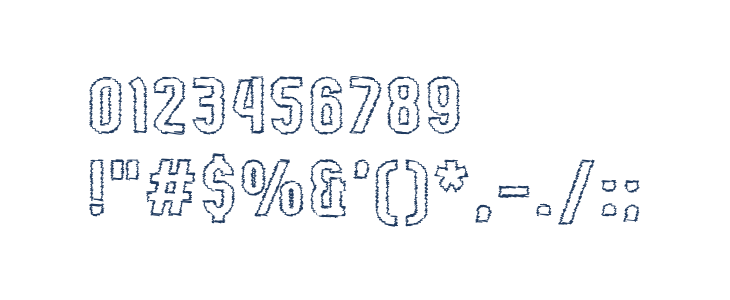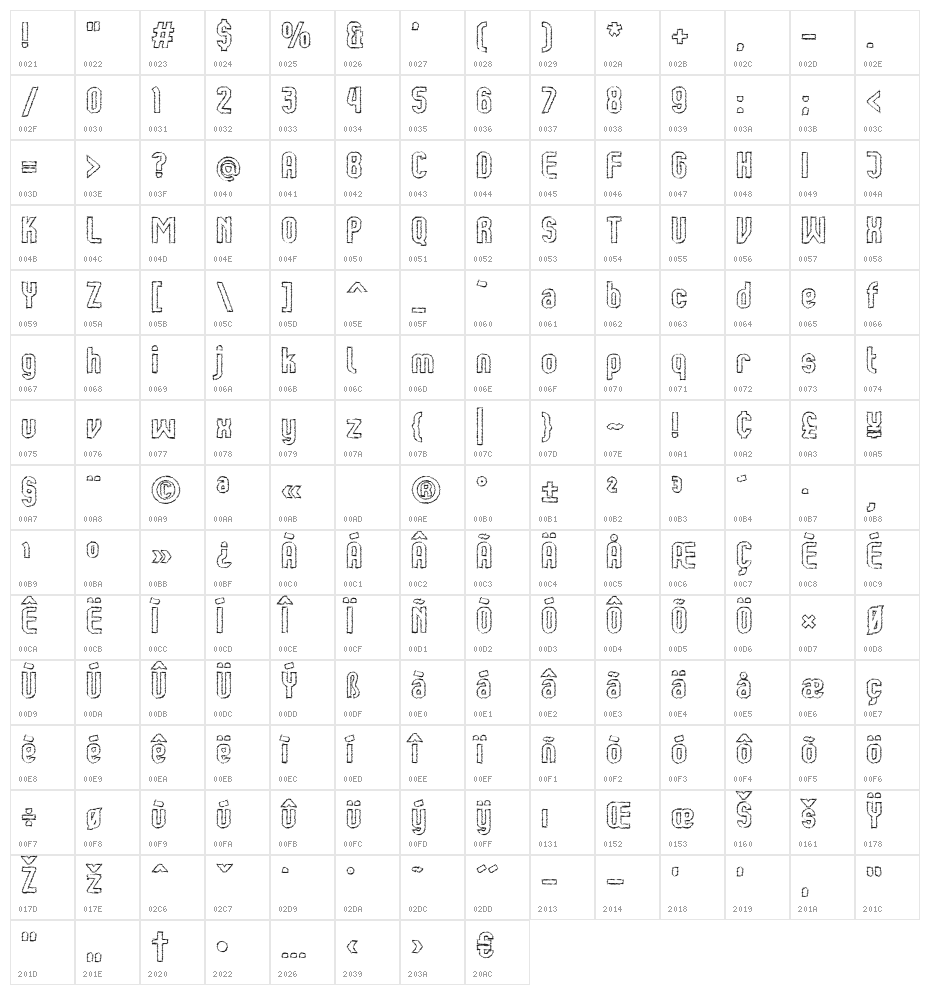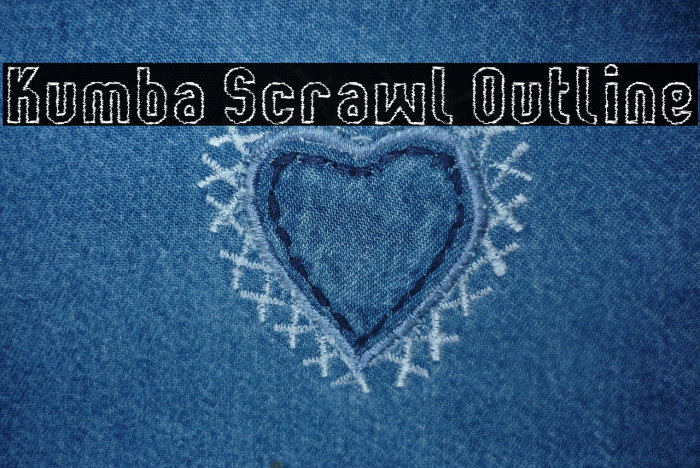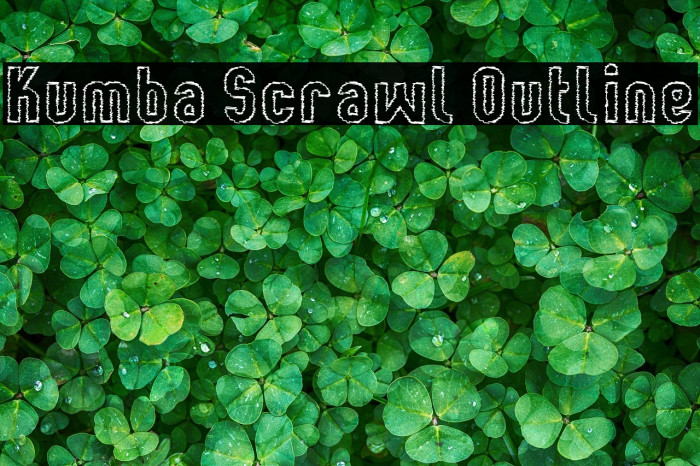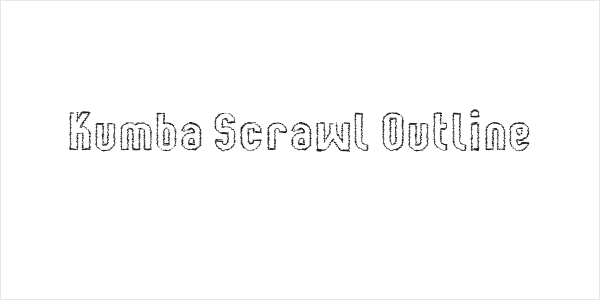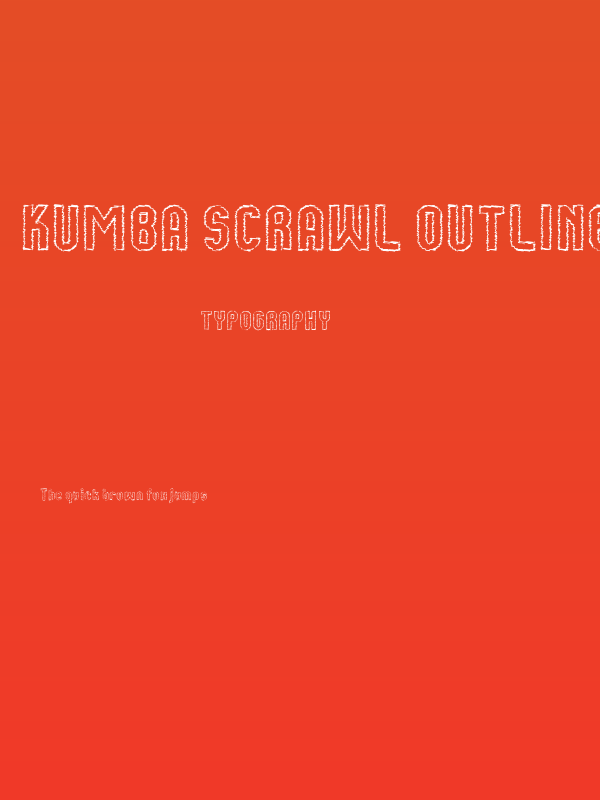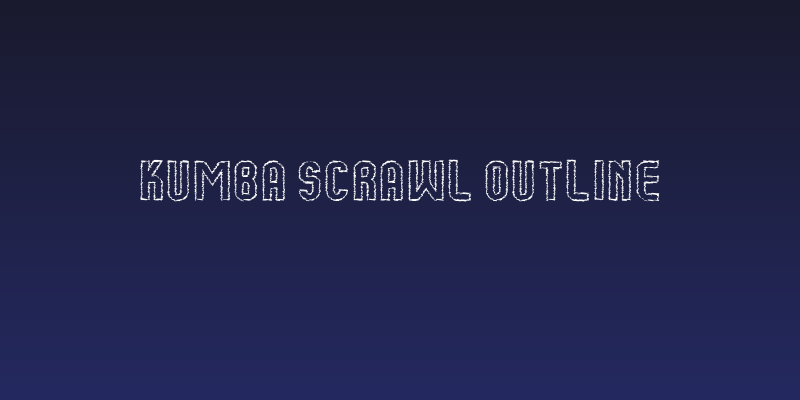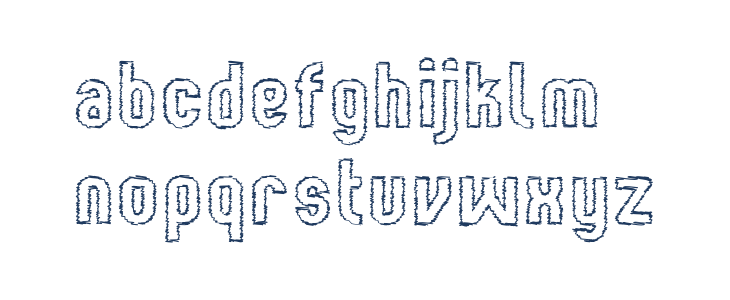
Kumba Scrawl Outline Font
Kumba Scrawl Outline Description
This font features a playful and artistic outline style, reminiscent of hand-drawn sketches. The characters are bold and have a unique, irregular edge that gives them a textured appearance. The uppercase and lowercase letters maintain a consistent height, providing a uniform look across the alphabet. Numbers and special characters follow the same design principles, ensuring a cohesive visual experience. The font's outline nature makes it stand out, ideal for creative projects that require a touch of whimsy and individuality.